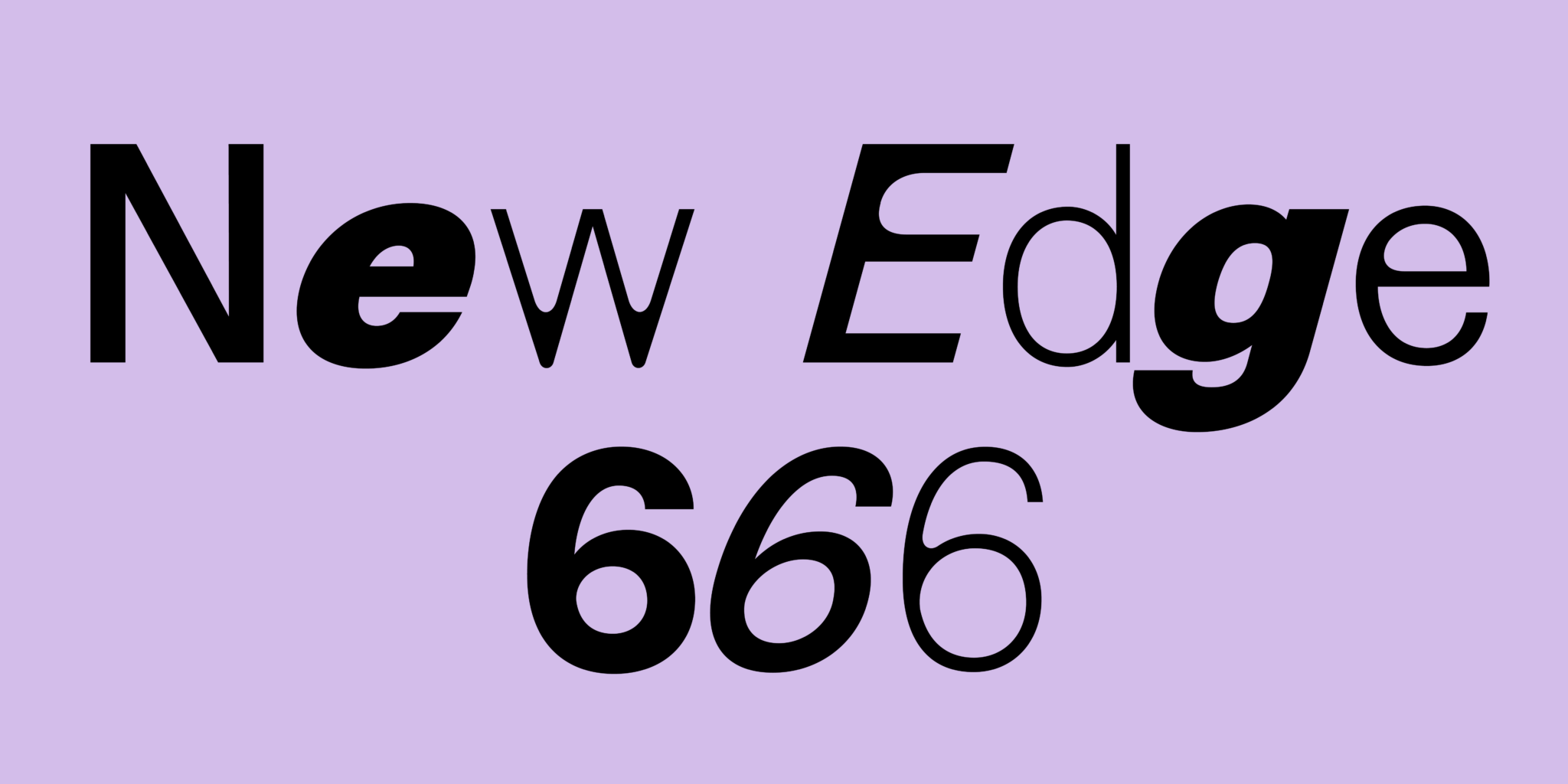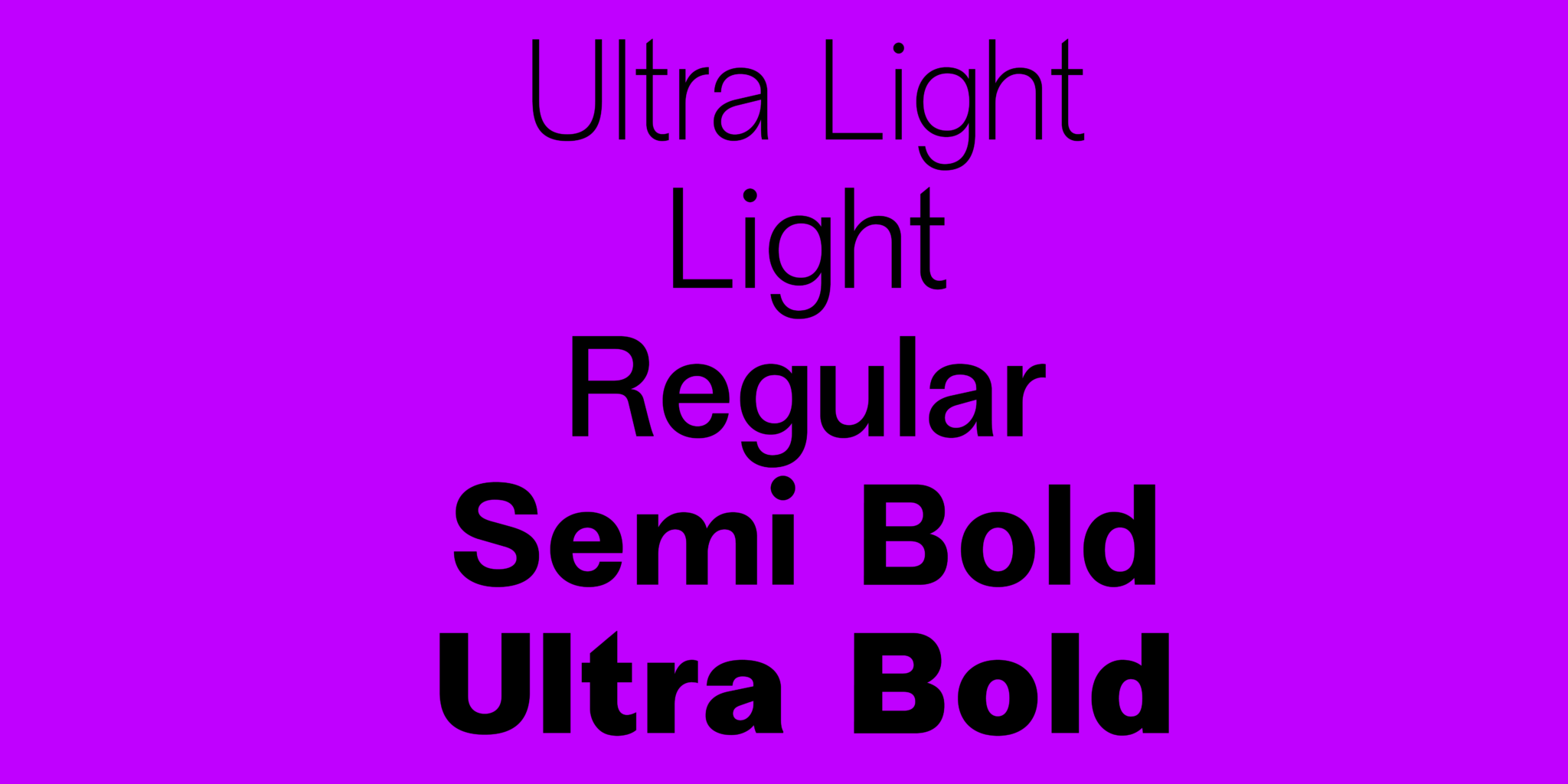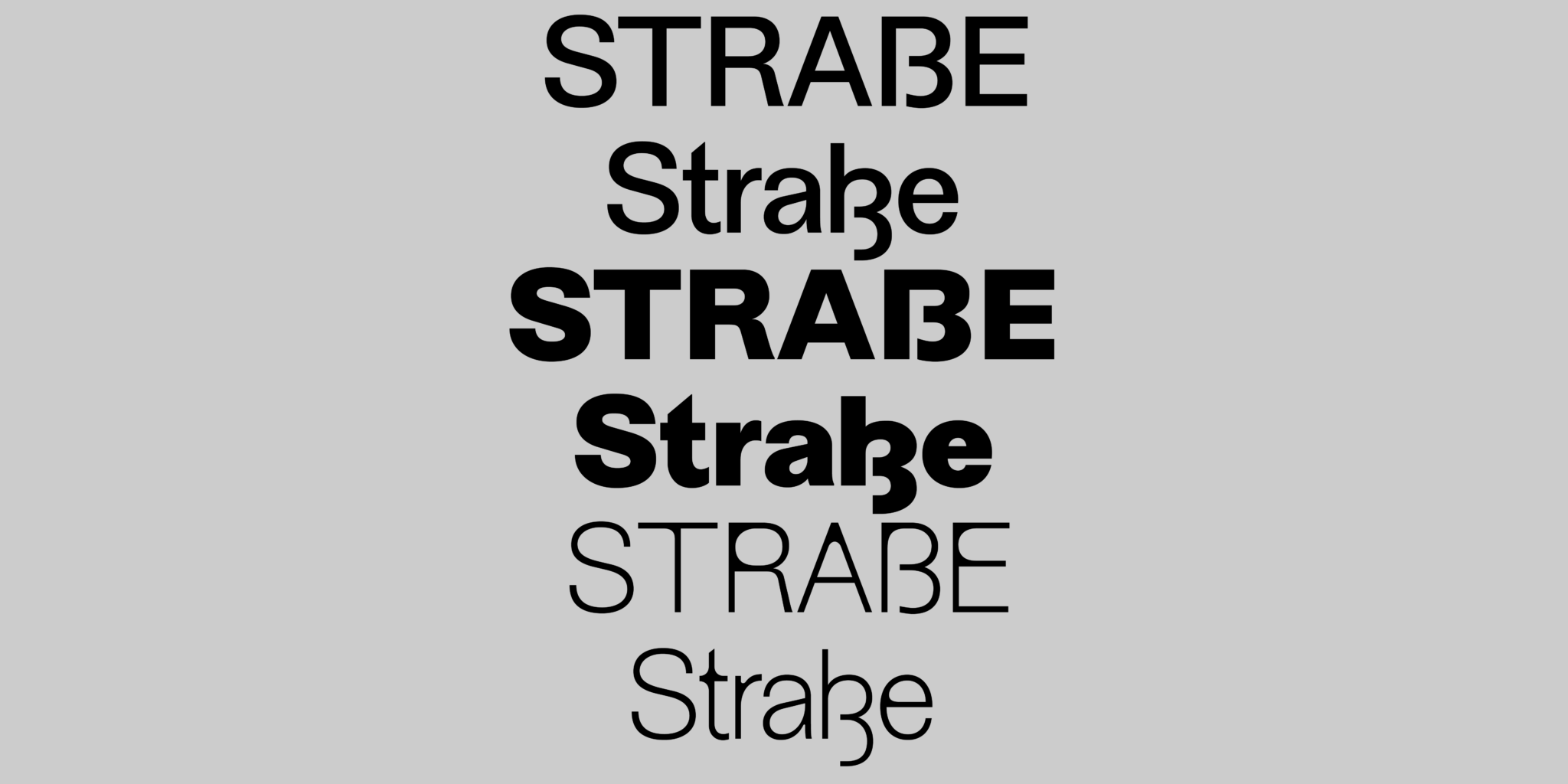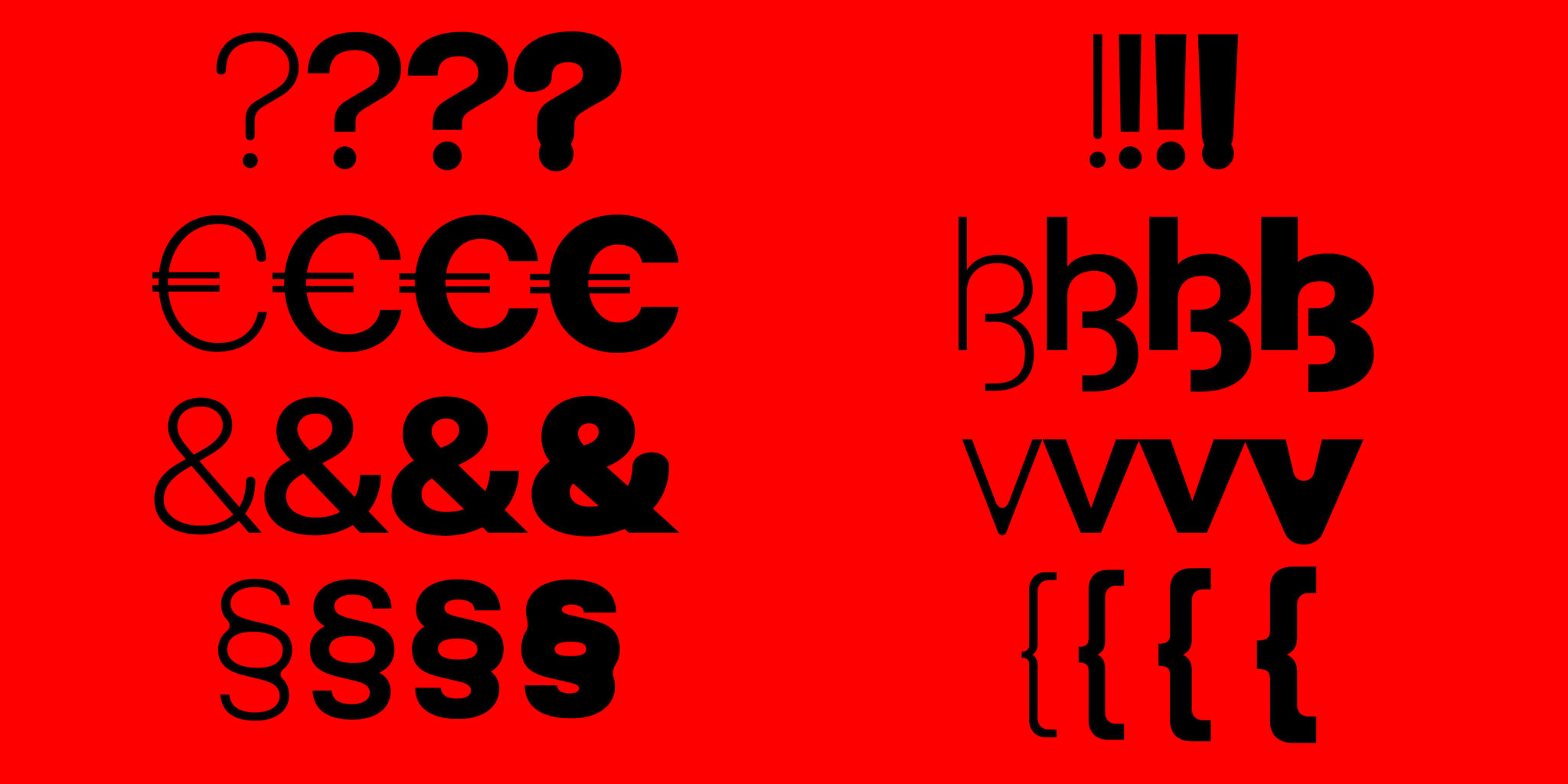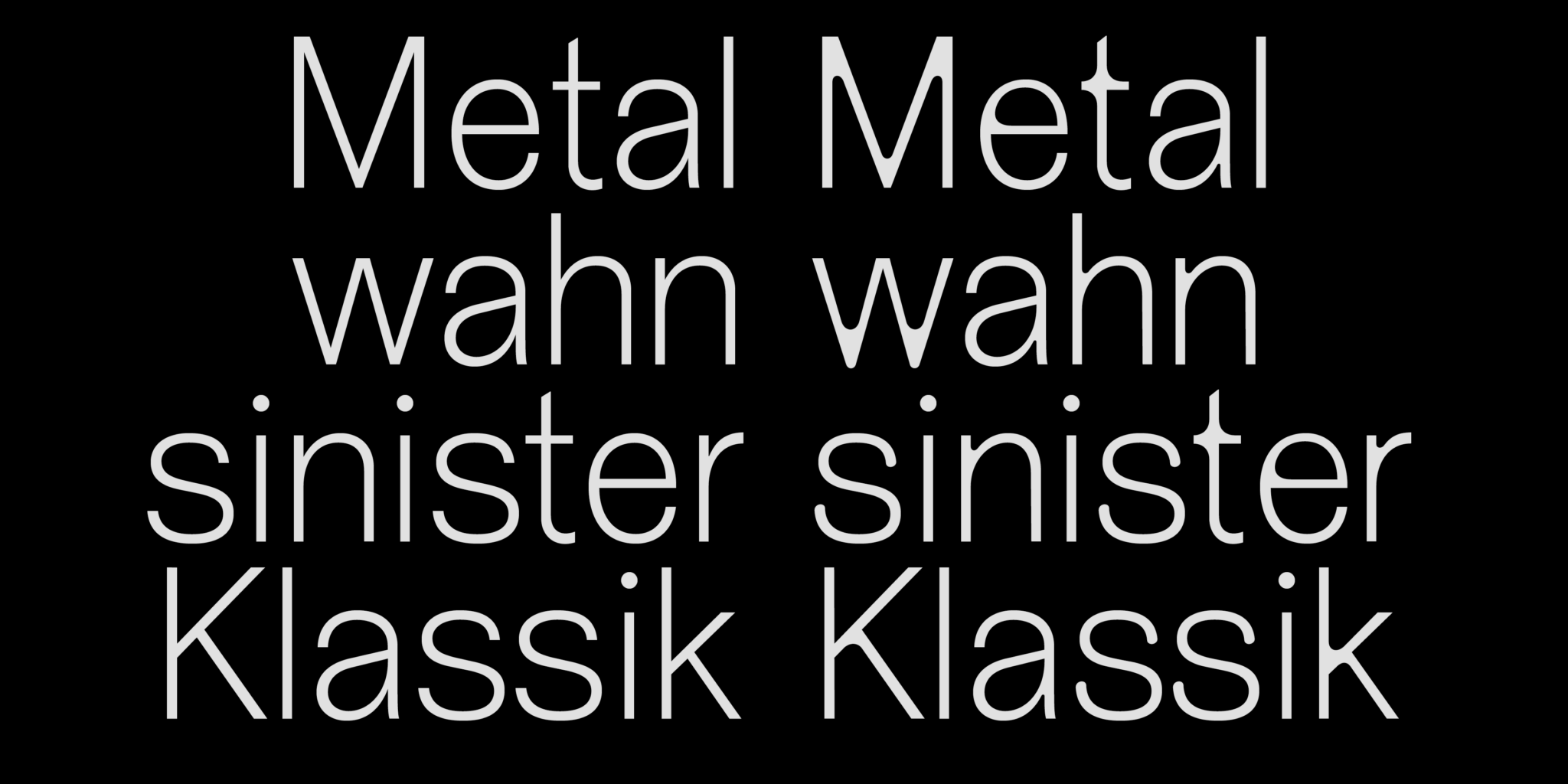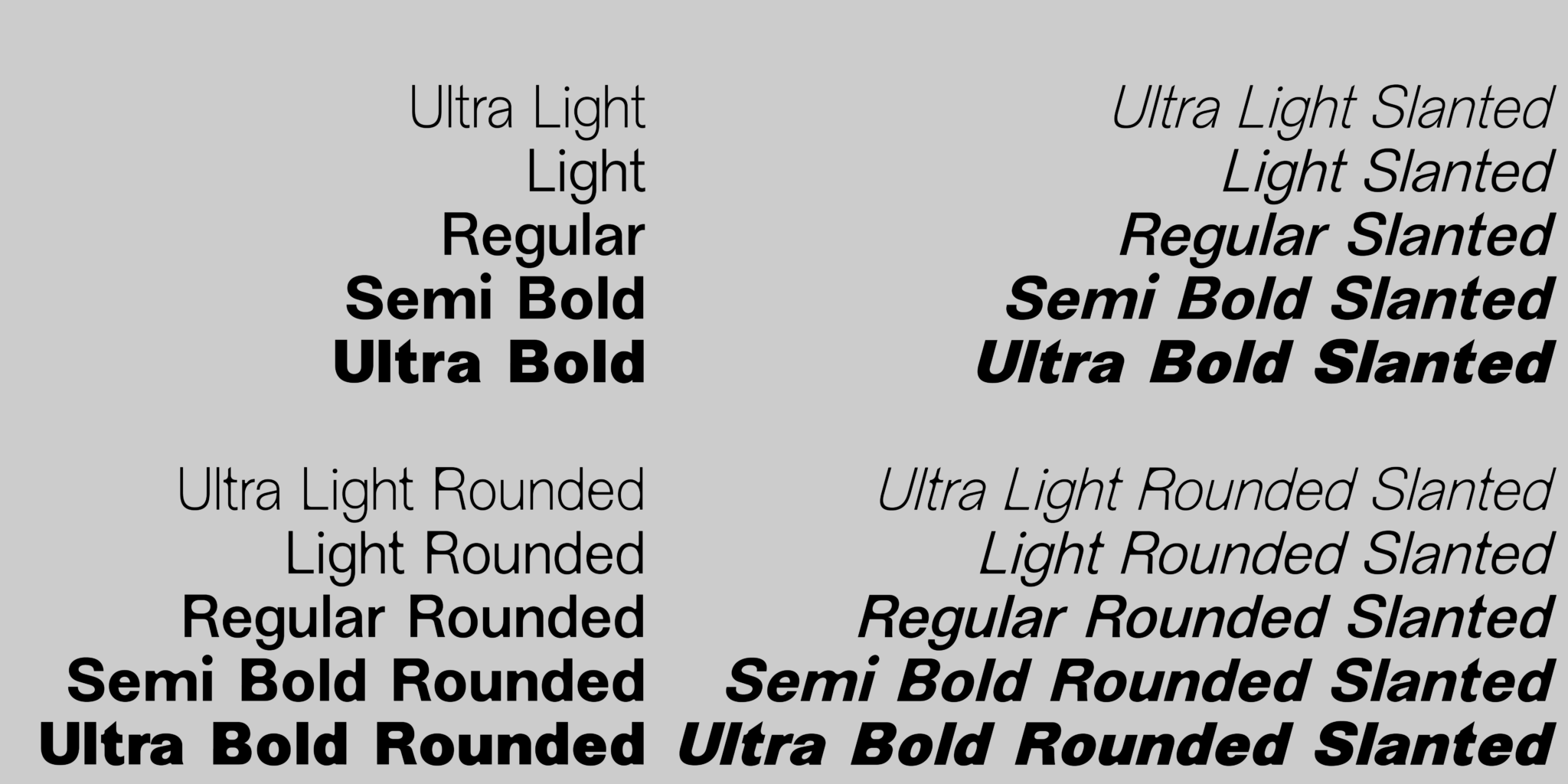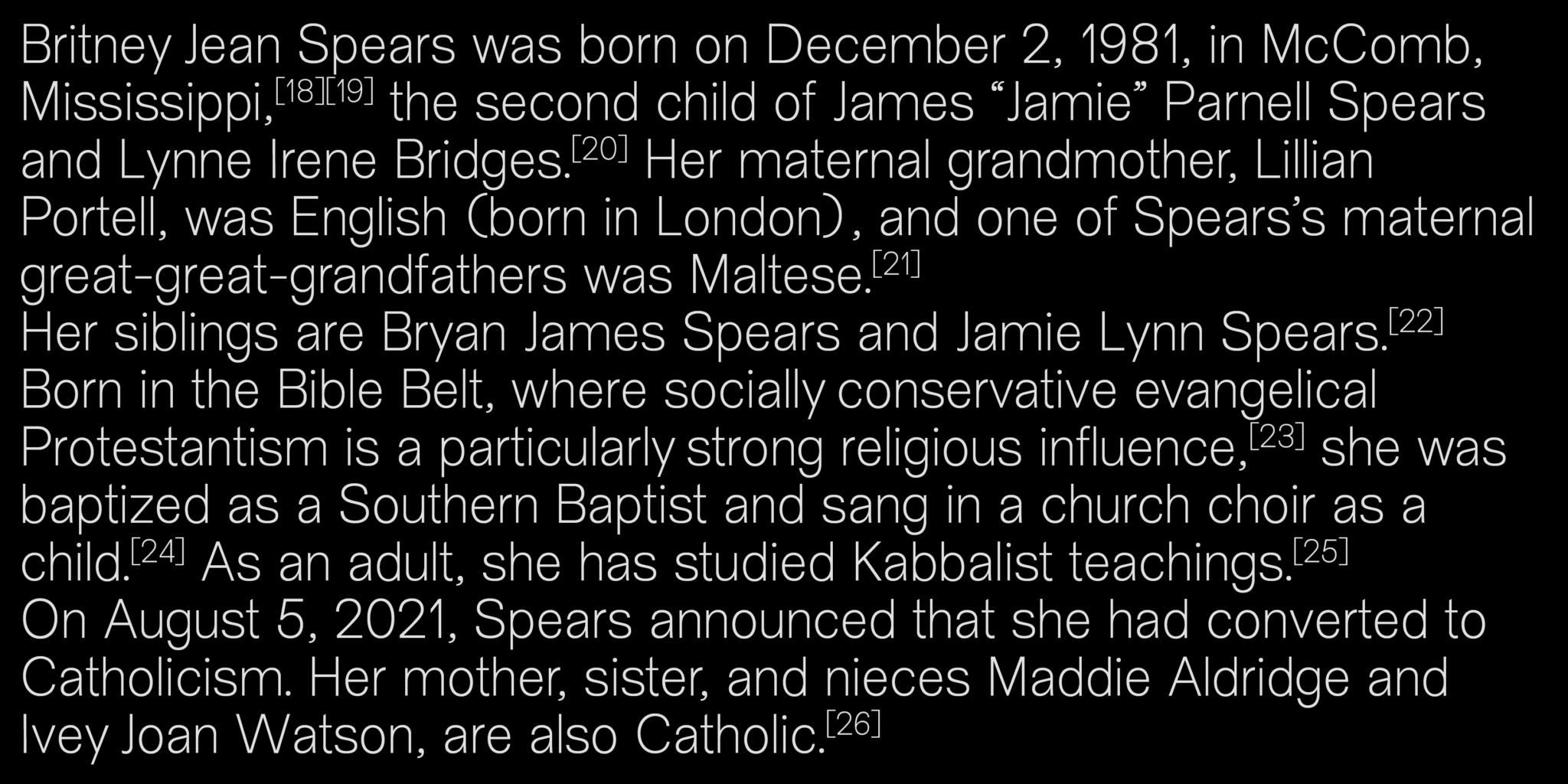
New Edge 666
NewEdge666 was first developed as a custom typeface for the visual identity of the Berlin-based feminist project space soft power, in special collaboration wit Melissa Lücking.
Now it has been customized for various institutions and companies such as Haus der Kulturen der Welt in berlin or the dating app FEELD.
New Edge 666
Ultra Light Slanted Ultra Light Rounded Ultra Light Light Slanted Light Rounded Light Ultra Bold Slanted Ultra Bold Rounded Ultra Bold Semibold Rounded Slanted Regular Rounded Slanted Regular Rounded Regular Semibold Slanted Semibold Rounded Semi Bold